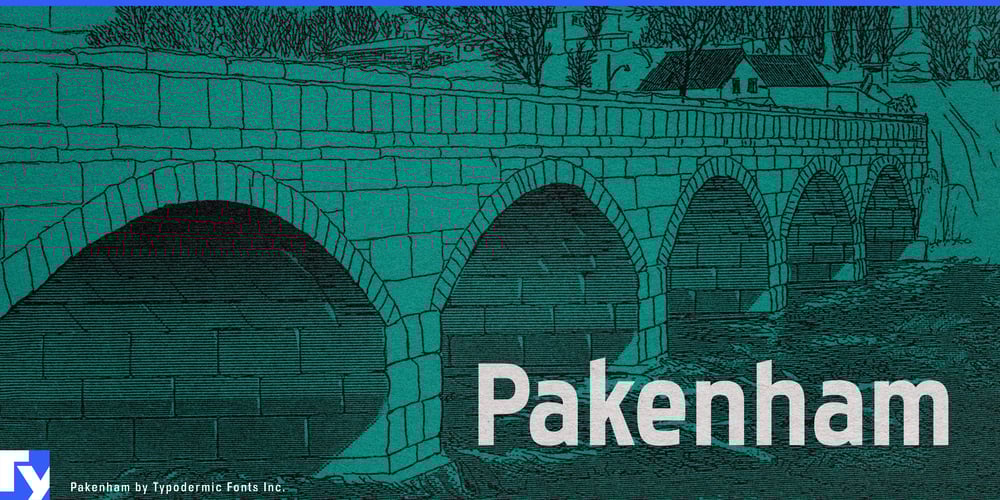
Pakenham Font Family was designed by Ray Larabie and published by Typodermic. Pakenham contains 2 styles and family package options. Pakenham: where imperfection meets elegance. This Typodermic Fonts creation is a love letter to the beauty of subtle flaws, a sans-serif that dares to embrace its quirks and oddities.Inspired by the timeless Steile Futura, Pakenham doesn’t merely imitate—it evolves. Its gently curved corners and generously scaled loops whisper of modernity, while its clean lines pay homage to minimalist design. But it’s in the details where Pakenham truly sings. Each character bears the mark of intentional inconsistency, a testament to the human touch in a digital age. Pakenham’s superelliptical design is a rebellion against the tyranny of perfection. Its oddities and anomalies aren’t flaws to be corrected, but rather the very essence of its charm. In a world of cookie-cutter typography, Pakenham stands out—not with a shout, but with a knowing wink.This typeface is a chameleon, adapting effortlessly across four weights, two widths, italics, and special effect styles. In body text, it lends a subtle flavor to your words, its idiosyncrasies barely perceptible yet undeniably present. In headlines, these quirks come to the fore, demanding a second look and rewarding close inspection. Pakenham excels in projects that call for a touch of the unconventional within a framework of elegance. From high-end fashion editorials to artisanal product packaging, it adds a layer of sophistication that’s anything but sterile. Its versatility extends across linguistic borders too, supporting a vast array of Latin-based European writing systems from Afrikaans to Zulu.This isn’t a typeface for those who seek bland perfection. It’s for designers who understand that true beauty lies in the unique, the slightly off-kilter, the almost-but-not-quite symmetrical. Pakenham is for those who appreciate the artistry in a handcrafted ceramic over mass-produced porcelain, who see the value in a perfectly imperfect brushstroke. Ready to infuse your designs with character that goes beyond mere letters? Get Pakenham today. Because in a world striving for flawless uniformity, sometimes the most powerful statement is a subtle departure from the norm.